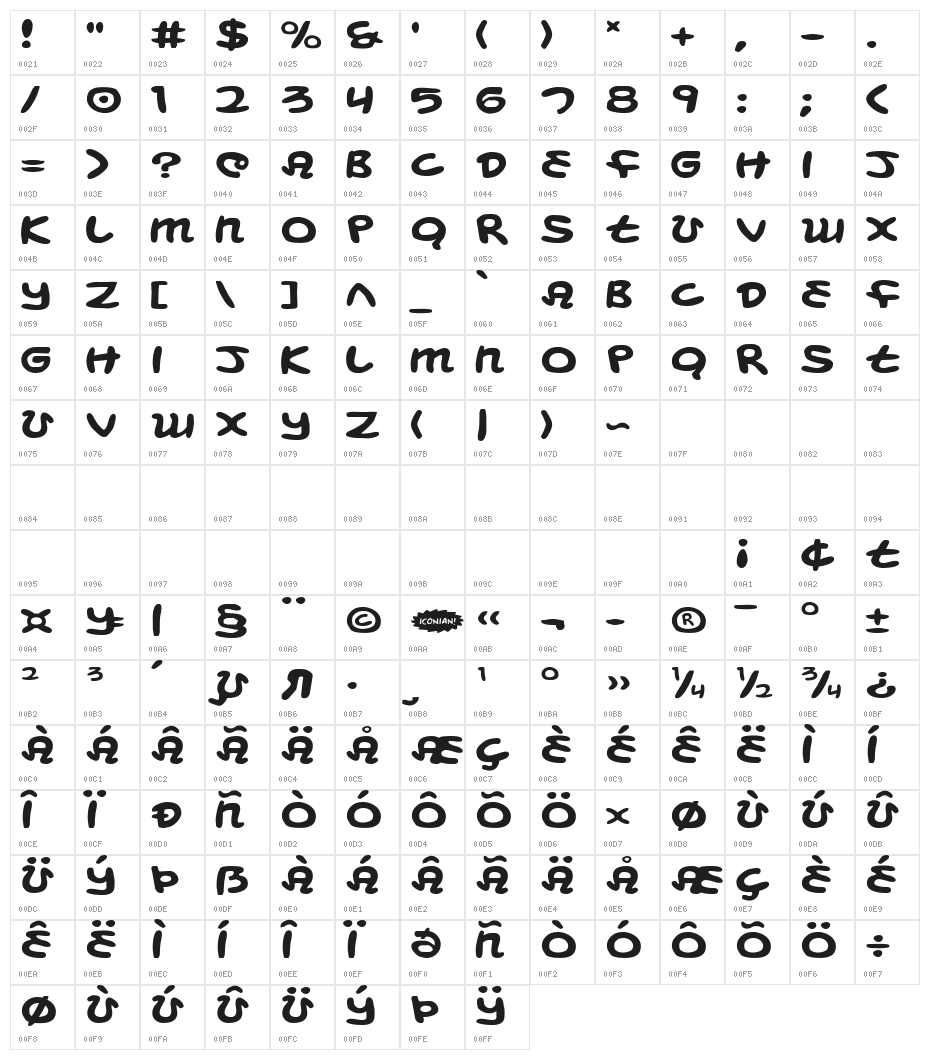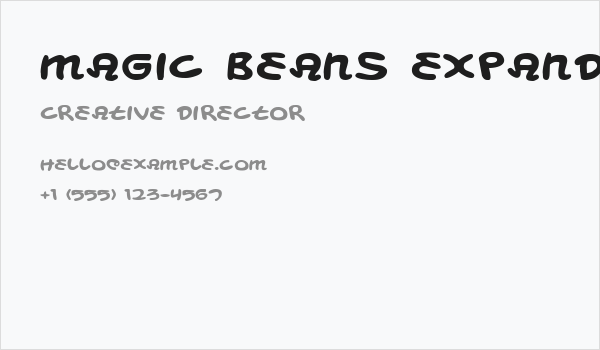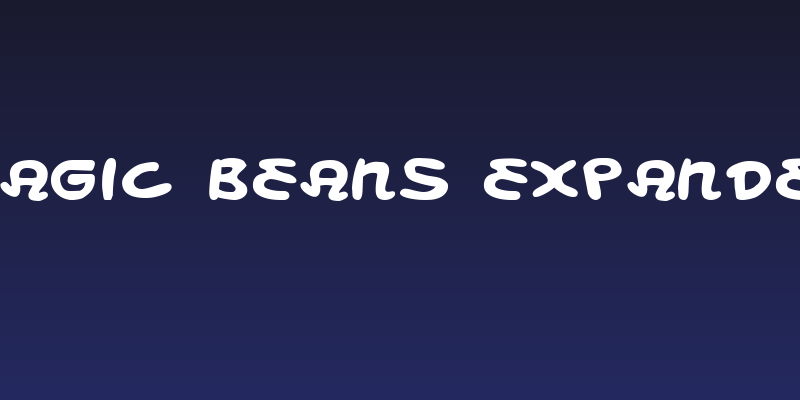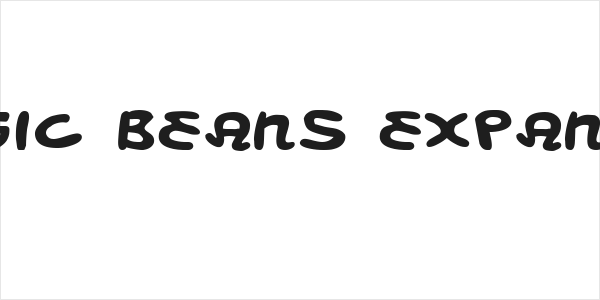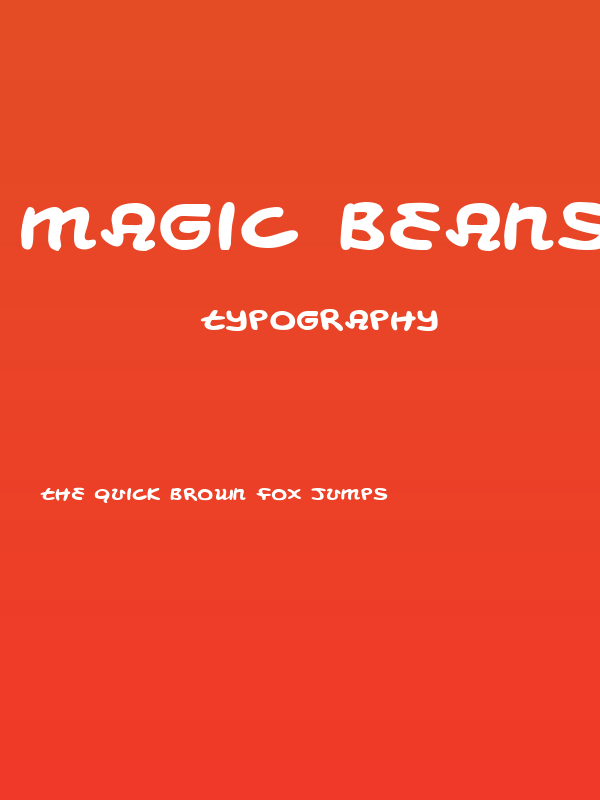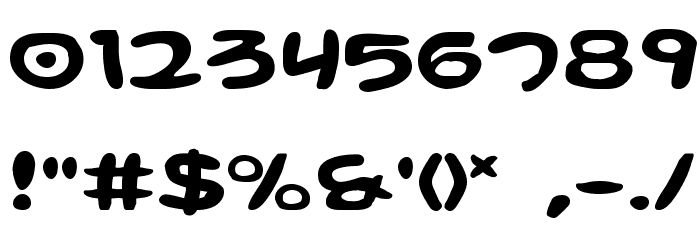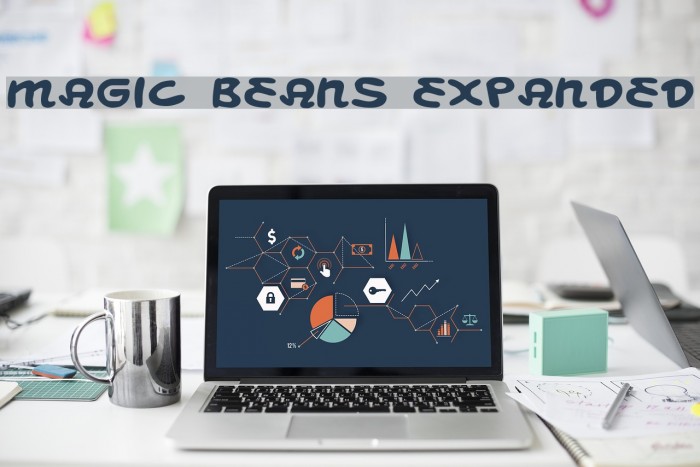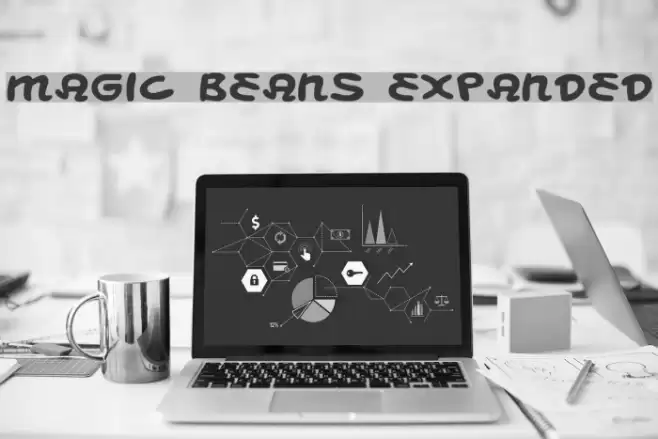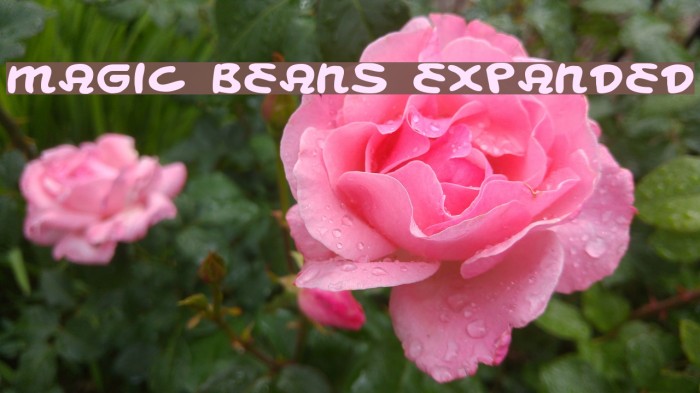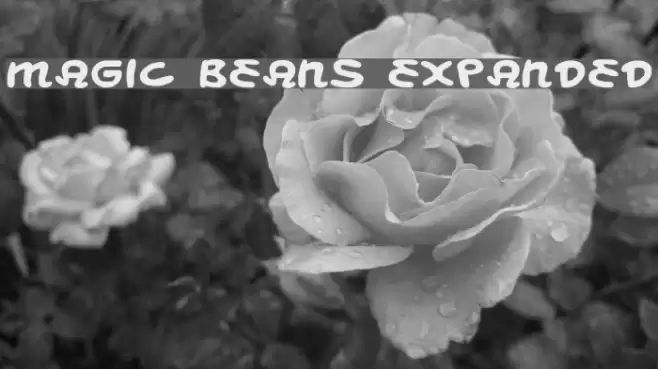
Magic Beans Expanded Font
Magic Beans Expanded Description
This playful and whimsical font features bold, rounded characters with a hand-drawn feel. The strokes are thick and consistent, giving it a cartoonish and friendly appearance. Each letter is slightly irregular, adding to its charm and uniqueness. The numbers and special characters maintain the same playful style, making it suitable for creative and fun projects. Its expanded width allows for easy readability, while the overall style is casual and inviting.
| Overall Style | Playful and Whimsical |
| Proposed Projects | Ideal for children's books, playful branding, comic strips, and creative posters. |